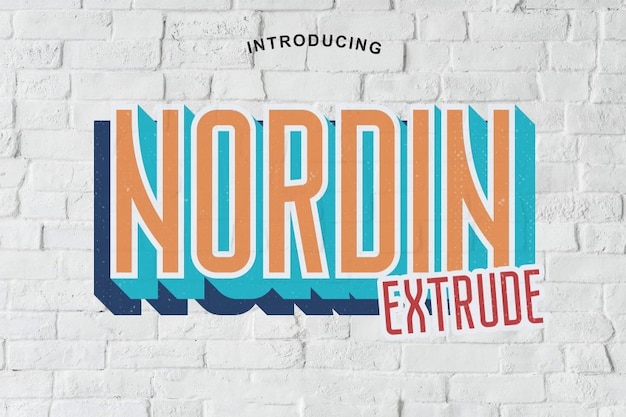
Nordin Font
It is the embodiment of vintage charm with a hint of retro nostalgia. Its geometrical precision takes you back to a bygone era of classic design. Each letter carries the elegance of the past, making it perfect for projects that need a touch of old-school class. Whether you're crafting invitations, posters, or branding materials, "Nordin" adds that vintage flair that captures the essence of a timeless aesthetic.